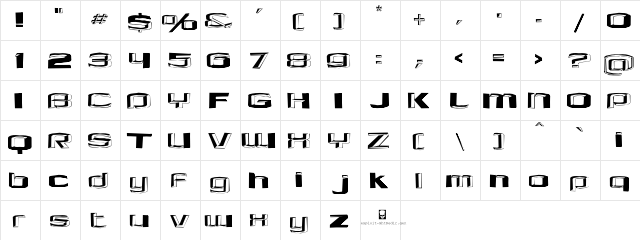
LHF Cool Blue Convex Regular
| Foundry | Chuck Davis for Letterhead Fonts |
| Designer | Chuck Davis |
Design Context for LHF Cool Blue Convex Typeface
LHF Cool Blue Convex is a composed and adaptable typeface that performs quietly and consistently across a wide range of design contexts.